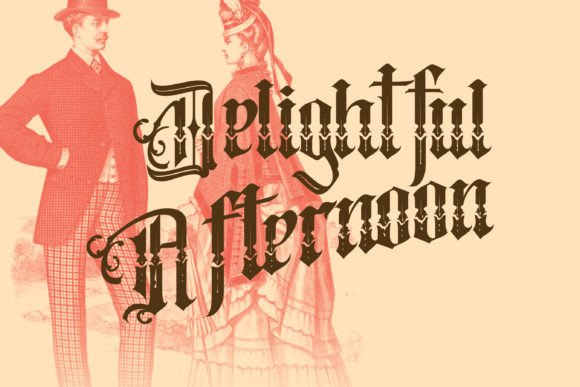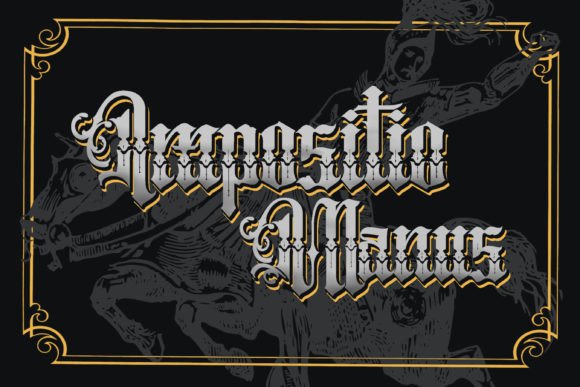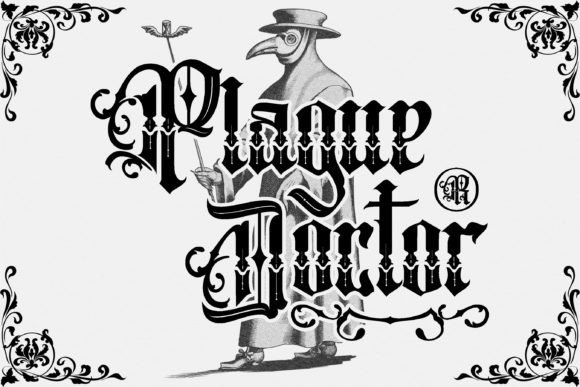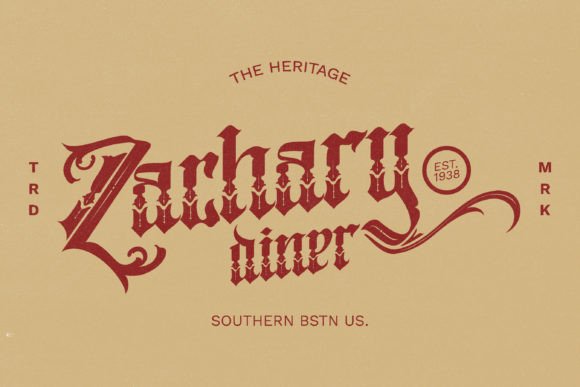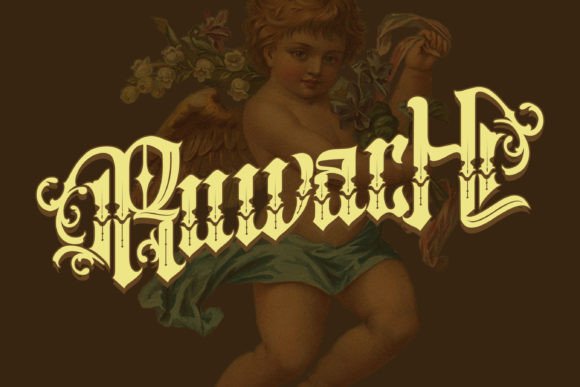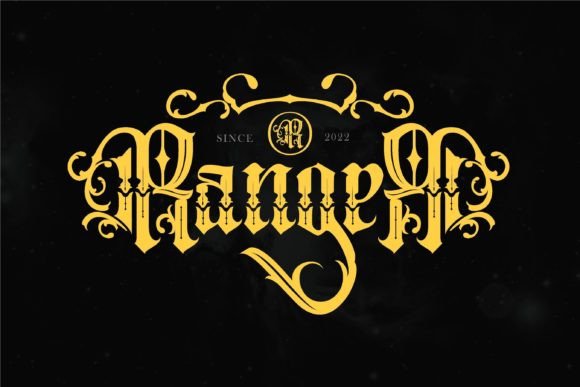
Introducing Crayscale: A Timeless Blackletter Victorian Font
In the world of typography, few styles evoke the same level of elegance and sophistication as blackletter fonts. Among these, Victorian-era inspired blackletter fonts hold a special place, with their intricate details and ornate lettering styles. It is with great excitement that we introduce Crayscale, a captivating blackletter Victorian font that brings a touch of vintage charm to your designs.
The Inspiration Behind Crayscale
Crayscale draws its inspiration from the ornate lettering styles of the Victorian era, a time when typography was an art form. The Victorian era, named after Queen Victoria, was a period of significant cultural, artistic, and industrial development in the United Kingdom. This era was characterized by its love for intricate designs, ornate patterns, and detailed craftsmanship. Typography during this period reflected these characteristics, with blackletter fonts being particularly popular for their dramatic and expressive qualities.
Design Characteristics of Crayscale
Crayscale is meticulously crafted to capture the essence of traditional blackletter typography while adding a modern twist. Its sharp, angular lines combined with ornamental flourishes create a harmonious balance between the past and the present. The font features intricate details and distinctive Gothic-inspired shapes, making it a perfect choice for designers looking to add a touch of elegance and sophistication to their work.
Key Features of Crayscale
- Intricate Details: Crayscale boasts intricate details that are reminiscent of traditional Victorian-era typography. Each letter is carefully crafted to ensure that it not only stands alone but also contributes to the overall aesthetic of your design.
- Gothic-Inspired Shapes: The font features distinctive Gothic-inspired shapes that add a touch of drama and elegance to your designs. These shapes are carefully integrated to ensure that the font remains readable while still conveying the desired level of sophistication.
- Ornamental Flourishes: Crayscale includes ornamental flourishes that can be used to enhance your designs. These flourishes can be used to add a touch of personality to your work, making it stand out in a crowded design landscape.
- Modern Twist: While Crayscale is deeply rooted in traditional typography, it also features a modern twist that makes it suitable for contemporary designs. This blend of old and new ensures that your work remains timeless and relevant.
Use Cases for Crayscale
Crayscale is a versatile font that can be used in a variety of design projects. Here are some potential use cases:
- Branding and Logo Design: The elegant and sophisticated nature of Crayscale makes it an excellent choice for branding and logo design. It can help create a memorable and impactful brand identity.
- Packaging Design: Crayscale can add a touch of luxury and sophistication to packaging designs. Its intricate details and ornate lettering styles make it perfect for high-end products.
- Advertising and Marketing Materials: The font’s ability to convey elegance and charm makes it suitable for use in advertising and marketing materials. It can help create visually appealing and effective campaigns.
- Web Design: Crayscale can also be used in web design to add a touch of elegance and sophistication to websites. Its readability and aesthetic appeal make it a great choice for headers, titles, and other design elements.
Crayscale is a captivating blackletter Victorian font that brings a touch of vintage sophistication to your designs. Its intricate details, distinctive Gothic-inspired shapes, and ornamental flourishes make it a perfect choice for designers looking to add elegance and charm to their work. Whether you’re working on branding and logo design, packaging design, advertising and marketing materials, or web design, Crayscale is sure to make a lasting impression. With its harmonious balance of traditional and modern elements, Crayscale is a timeless font that will continue to inspire and elevate your designs for years to come.